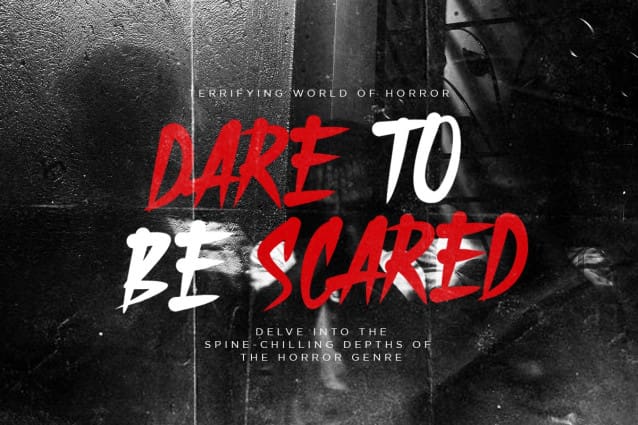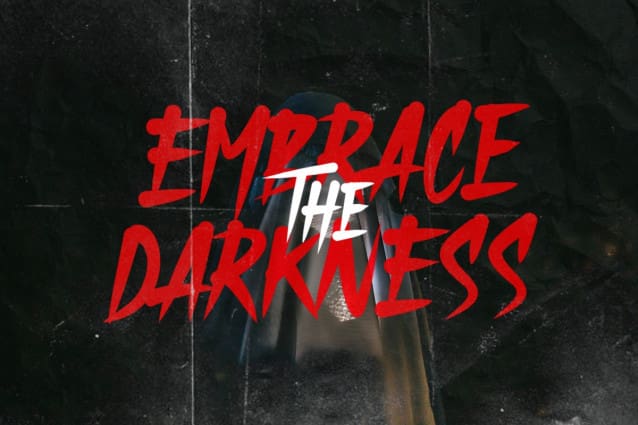
DUGHON BRUSH HORROR FONT
Dughon Brush Horror Font Is Halloween Brush Font Inspired By Horror and Trash Style. Is a scary font with a minimal effect of brushstroke. The letters make an ambiance of horror Invitations, postcards, posters, and headings for a Halloween event; this font can be used in every setting.